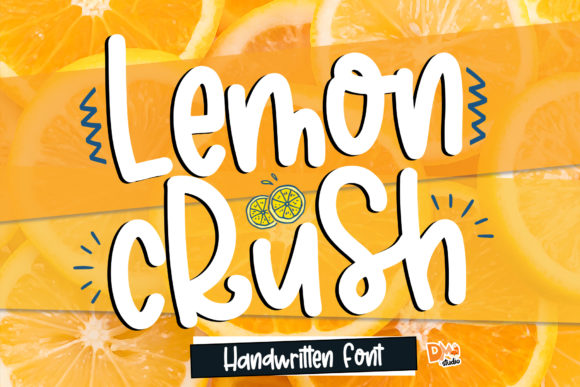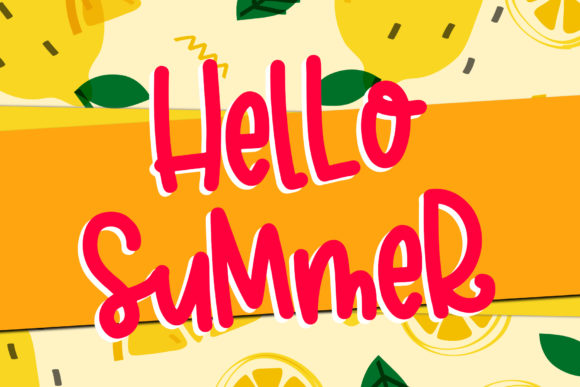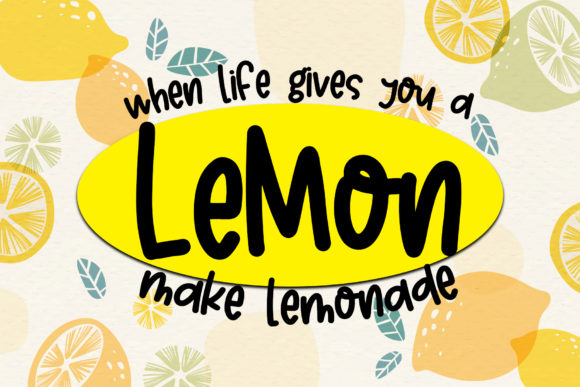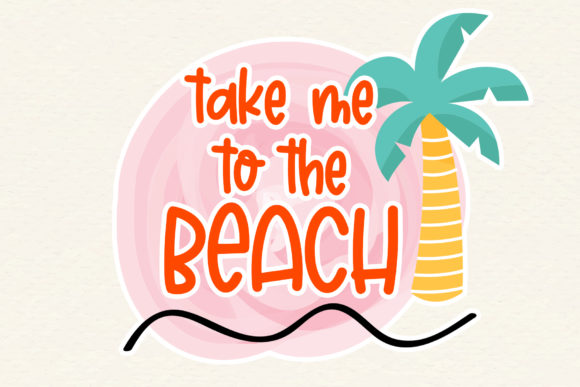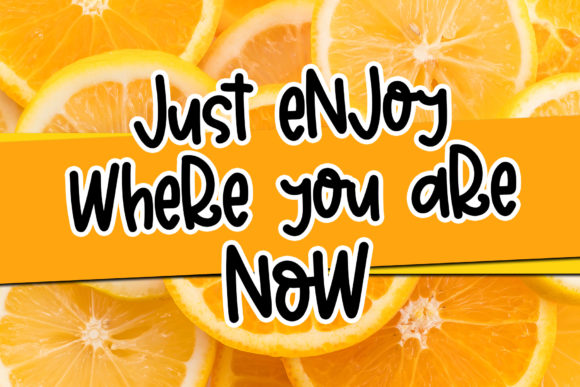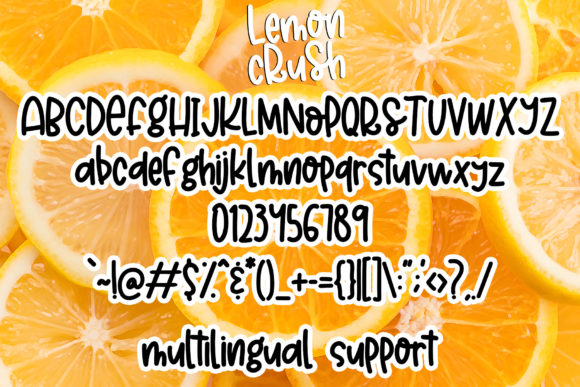
Lemon Crush Font
About Lemon Crush Font
Lemon Crush is a fresh, cute and friendly handwritten font. Clean and a little bit quirky, this font is the perfect fit for all of your logos, branding, social media, and crafty DIY projects.